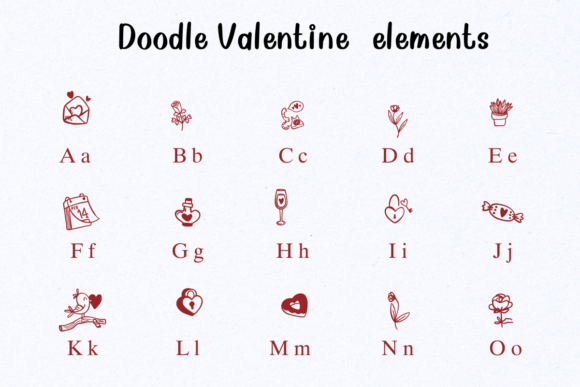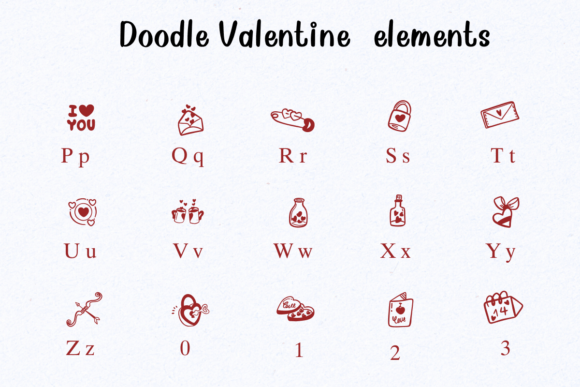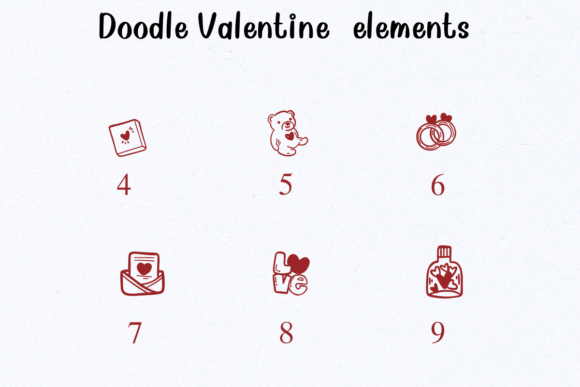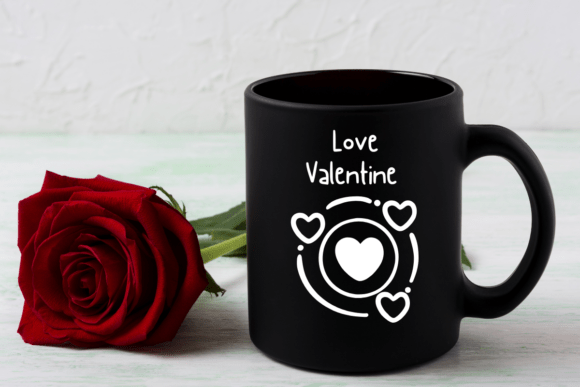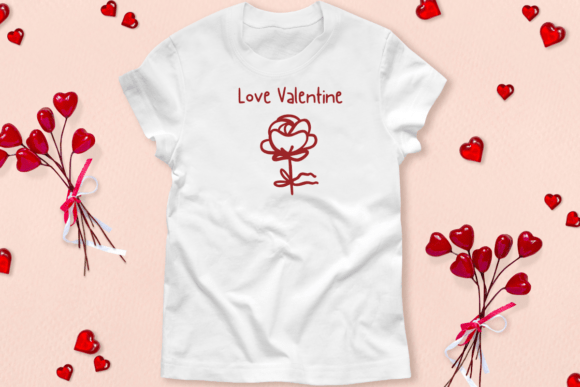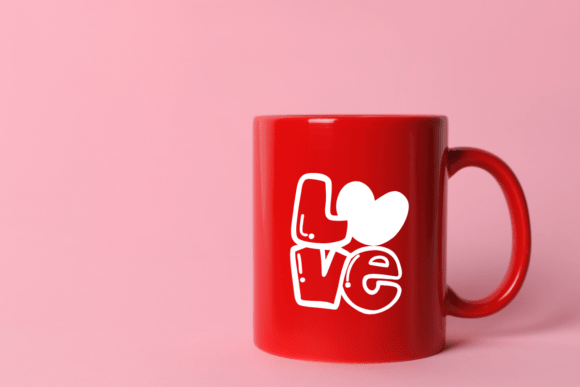
The Doodle Valentine Elements Font: A Romantic Dingbats Delight
Ah, Valentine’s Day – a time for love, chocolate, and, of course, designing adorable projects for our favorite clients or personal creations. I recall a particularly stressful design session where I was tasked with creating a custom Valentine’s Day card for a client. I had a vision of a whimsical, hand-drawn design, but I was struggling to find the perfect font to bring it all together. That’s when I stumbled upon the Doodle Valentine Elements font – a romantic dingbats font that has since become a staple in my design toolkit.
First Impressions: A Love at First Sight
The Doodle Valentine Elements font is a charming collection of dingbats and icons that scream Valentine’s Day. From hearts and flowers to cute little animals, this font has everything you need to create adorable projects. Its playful, hand-drawn aesthetic makes it perfect for use as stickers, logos, business cards, and so much more.
- ✨ The font’s extensive library of glyphs and symbols, which offers endless creative possibilities.
- ✅ The clean and crisp design, making it perfect for both digital and print projects.
- 💕 The adorable Valentine’s Day-themed icons, which add a touch of whimsy to any design.
While the Doodle Valentine Elements font is a delightful addition to any design project, there are a few minor quirks to be aware of:
- 🤔 Some users may find the font’s dingbats and icons a bit too playful for formal projects.
- ⚠️ The font may not work well with certain languages or non-English characters.
The Designer Inspiration Behind Doodle Valentine Elements
The Doodle Valentine Elements font was created with love and care by a talented designer who wanted to capture the whimsical and romantic spirit of Valentine’s Day. With a passion for creating unique and playful fonts, this designer has crafted a font that’s sure to delight designers and crafters alike.
Q: What type of projects is Doodle Valentine Elements best suited for?
A: Doodle Valentine Elements is perfect for Valentine’s Day projects, such as custom cards, stickers, and decorations.